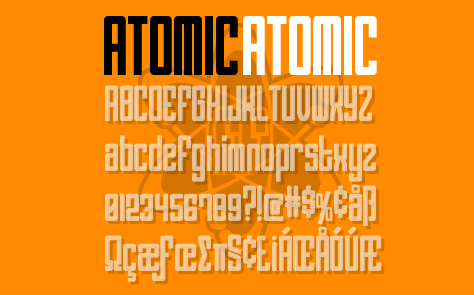
Atomic
I wanted to make a plain old set of letters. So that's what I did. This font has over 240 characters in it. Its what you might call large and in charge. The result of this 4 hour chore is a handy new set of letters that might look a little better than dumb old default text. You likey?